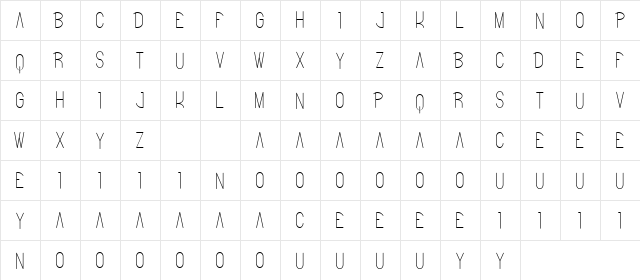
Bitter Space Demo Light
Design Context for Bitter Space Demo Typeface
Bitter Space Demo offers clean, dependable letterforms without strong stylistic allegiance, making it a practical choice for designers who need flexibility. The delicate stroke weight brings airiness and refinement to layouts.